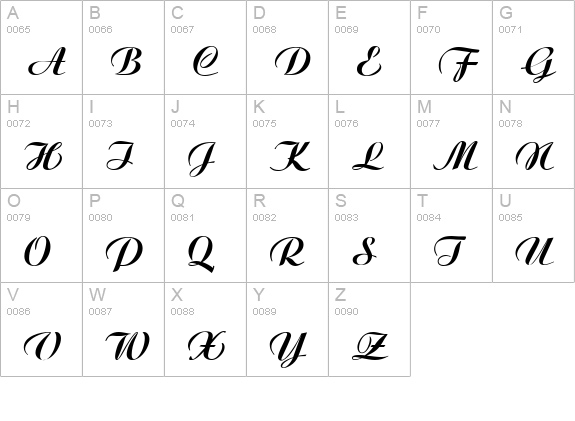
Agnes-Bold is a strong, high-contrast variant in the Agnes typeface family \xE2\x80\x94 well suited to headlines, attention-grabbing titles, and strong calls-to-action.
Agnes-Bold font is a stunning typeface that exudes elegance and sophistication. With its bold and sleek design, it commands attention and adds a touch of modernity to any project. The strong, clean lines of this font make it perfect for headlines, titles, and other important text that needs to stand out. What sets Agnes-Bold font apart is not only its aesthetic appeal but also its versatility. Whether you are designing a website, creating marketing materials, or working on a branding project, this font will elevate your work to new heights. And the best part? Agnes-Bold font is completely free to download at FontsMarket.com. This means you can access this beautiful typeface without any cost or restrictions, making it a valuable addition to your font collection. Don't miss out on the opportunity to enhance your designs with Agnes-Bold font today!